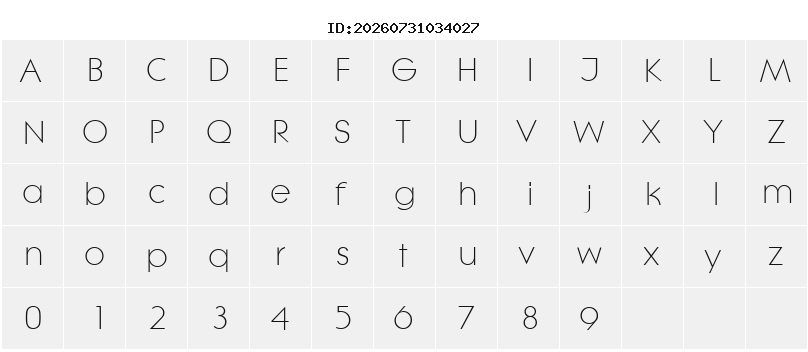
About Litera-Light.ttf
Litera-Light.ttf is a modern, elegant sans-serif font designed for ultimate readability and visual harmony. Perfect for branding, headlines, web design, and print materials.